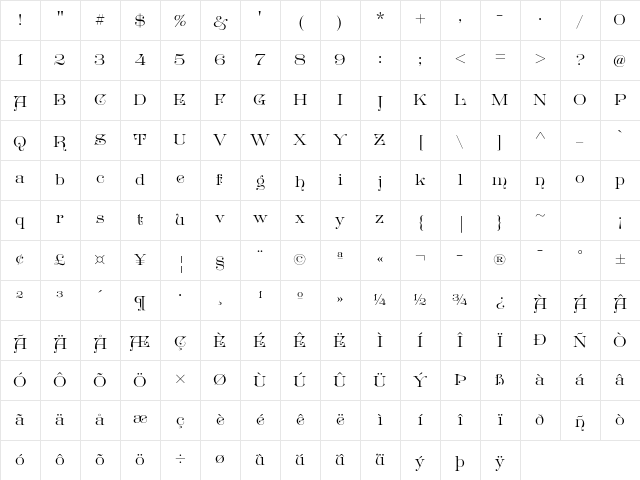
Great Victorian Standard is a composed and adaptable typeface that performs quietly and consistently across a wide range of design contexts.
Who designed the Great Victorian Standard Regular font?